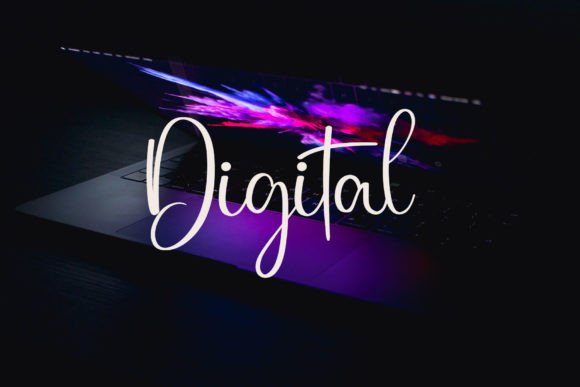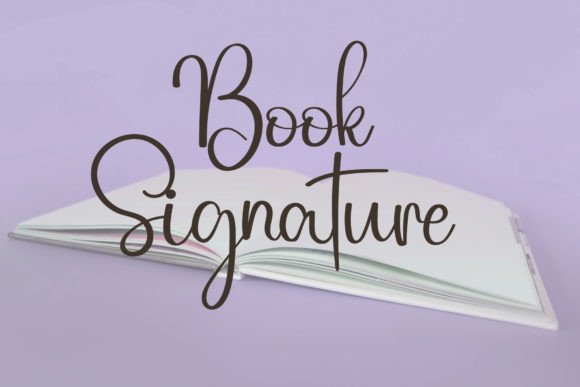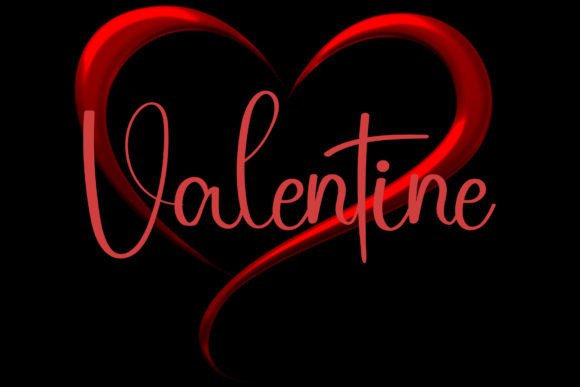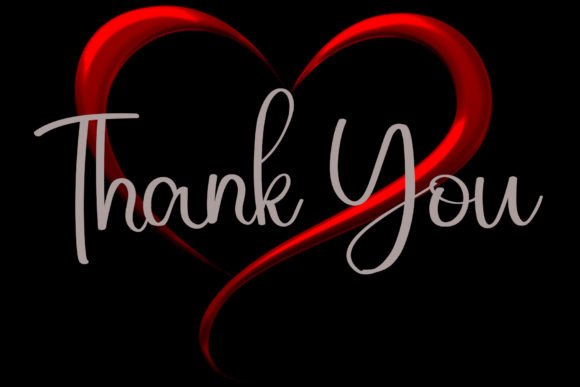
Better Font: Elevate Your Designs with Elegance and Flair
Are you tired of using the same old fonts in your designs? Look no further than Better Font, a delicate, elegant, and flowing handwritten font that’s sure to take your creative projects to the next level. With its beautiful and well-balanced characters, Better Font is the perfect addition to any design, from crafting and DIY projects to digital graphics and marketing materials.
The Characteristics of Better Font
Better Font is a unique and versatile font that’s designed to match a wide pool of designs. Its elegant and flowing script is perfect for adding a touch of sophistication and style to any project. The font features:
- Delicate and refined strokes
- Beautifully balanced characters
- Flowing connections between letters
- Support for a wide range of languages
Why Choose Better Font?
So why choose Better Font over other fonts on the market? Here are just a few reasons why Better Font stands out:
- Versatility: Better Font can be used in a wide range of designs, from formal and elegant to playful and whimsical.
- Elegance: The font’s delicate and refined strokes add a touch of sophistication and style to any project.
- Readability: Better Font is designed to be easy to read, even at small sizes.
- Uniqueness: Better Font is a unique and distinctive font that’s sure to set your designs apart from the crowd.
Using Better Font in Your Designs
So how can you use Better Font in your designs? Here are a few ideas to get you started:
- Crafting and DIY projects: Use Better Font to add a personal touch to your crafting and DIY projects, such as handmade cards, gift tags, and scrapbooking pages.
- Digital graphics: Use Better Font to create stunning digital graphics, such as social media graphics, blog headers, and email newsletters.
- Marketing materials: Use Better Font to add a touch of elegance and sophistication to your marketing materials, such as brochures, flyers, and business cards.
- Wedding and event planning: Use Better Font to create beautiful and elegant wedding and event planning materials, such as invitations, menus, and programs.
Tips for Getting the Most Out of Better Font
Here are a few tips for getting the most out of Better Font:
- Experiment with different sizes and colors: Better Font looks great in a wide range of sizes and colors, so don’t be afraid to experiment and find the perfect combination for your design.
- Pair with other fonts: Better Font pairs well with a wide range of fonts, so try pairing it with other fonts to create a unique and interesting look.
- Use it sparingly: Better Font is a elegant and sophisticated font, so use it sparingly to add a touch of elegance and style to your design.